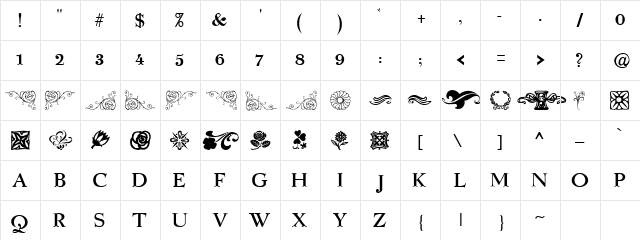
Spring Flower Dingbats Regular
Design Context for Spring Flower Dingbats Typeface
Spring Flower Dingbats is a composed and adaptable typeface that performs quietly and consistently across a wide range of design contexts.
Pro Tip: Use Spring Flower Dingbats in both headline and body roles to test its range before committing to a single application.